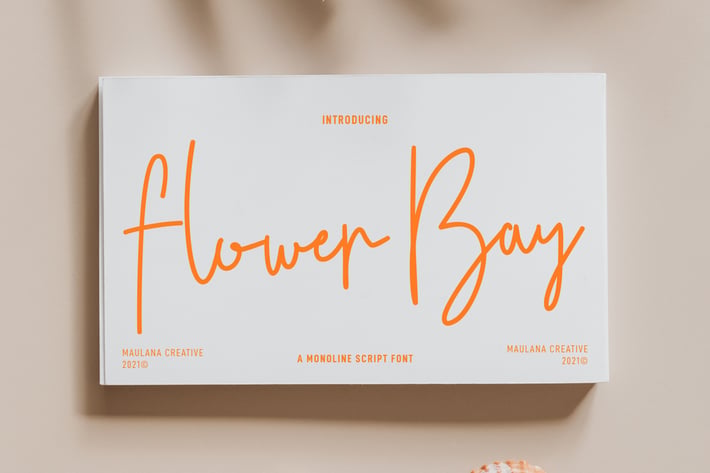
Flower Bay Handwritten Script Font
Flower Bay is a casual upright handwritten script font. With regular mono-line stroke, fun character with some of ligatures. To give you an extra creative work. Flower Bay font support multilingual more than 100+ language. This font is good for logo design, Social media, Movie Titles, Books Titles, a short text even a long text letter and good for your secondary text font with sans or serif. Make a stunning work with Flower Bay font.